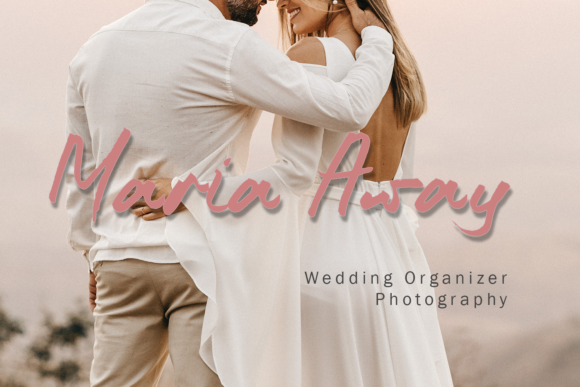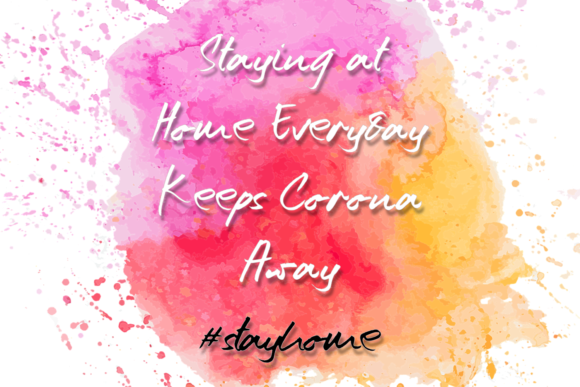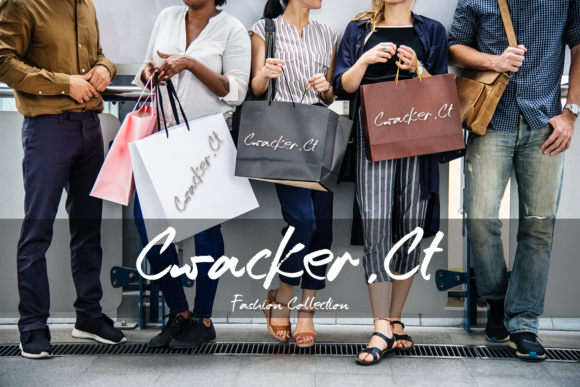
Cracker State Font: The Perfect Handwritten Font for Creative Projects
Are you a designer, crafter, or DIY enthusiast looking for a unique and playful font to elevate your creative projects? Look no further than Cracker State Font, a casual and fun handwritten font that is sure to turn your ideas into a true piece of art!
What is Cracker State Font?
Cracker State Font is a beautifully crafted handwritten font, created using a brush pen to give it a natural and effortless look. This font is perfect for anyone who wants to add a personal touch to their designs, whether it’s for Instagram, DIY projects, or any other creative endeavor. With its casual and fun vibe, Cracker State Font is sure to make your designs stand out from the crowd.
Features of Cracker State Font
- Handwritten with love: Cracker State Font is carefully crafted by hand using a brush pen, giving it a unique and personal touch.
- Casual and fun: This font has a playful and relaxed vibe, making it perfect for creative projects that require a friendly and approachable tone.
- Versatile: Cracker State Font can be used for a wide range of projects, from Instagram posts and stories to DIY crafts and calligraphy scripts.
- Easily readable: Despite its handwritten nature, Cracker State Font is easy to read and understand, making it perfect for designs that require a clear and concise message.
Uses of Cracker State Font
Cracker State Font is a versatile font that can be used for a variety of creative projects, including:
- Instagram posts and stories: Add a personal touch to your Instagram designs with Cracker State Font, making them stand out from the crowd.
- DIY projects: Use Cracker State Font to create beautiful calligraphy scripts for your DIY projects, such as handmade cards, gift tags, and more.
- Calligraphy scripts: Cracker State Font is perfect for creating stunning calligraphy scripts for special occasions, such as weddings, birthdays, and holidays.
- Branding and marketing materials: Use Cracker State Font to add a personal touch to your branding and marketing materials, such as business cards, brochures, and flyers.
Why Choose Cracker State Font?
With so many fonts available, why choose Cracker State Font? Here are just a few reasons:
- Unique and personal: Cracker State Font has a unique and personal touch that will make your designs stand out from the crowd.
- Easily customizable: This font can be easily customized to fit your design needs, making it perfect for a wide range of creative projects.
- High-quality: Cracker State Font is a high-quality font that is designed to deliver exceptional results, even at large sizes.
In conclusion, Cracker State Font is a casual, fun handwritten font that is perfect for designers, crafters, and DIY enthusiasts looking to add a personal touch to their creative projects. With its unique and effortless look, this font is sure to turn any creative idea into a true piece of art! Whether you’re looking for fonts for Instagram or calligraphy scripts for DIY projects, Cracker State Font is the perfect choice.